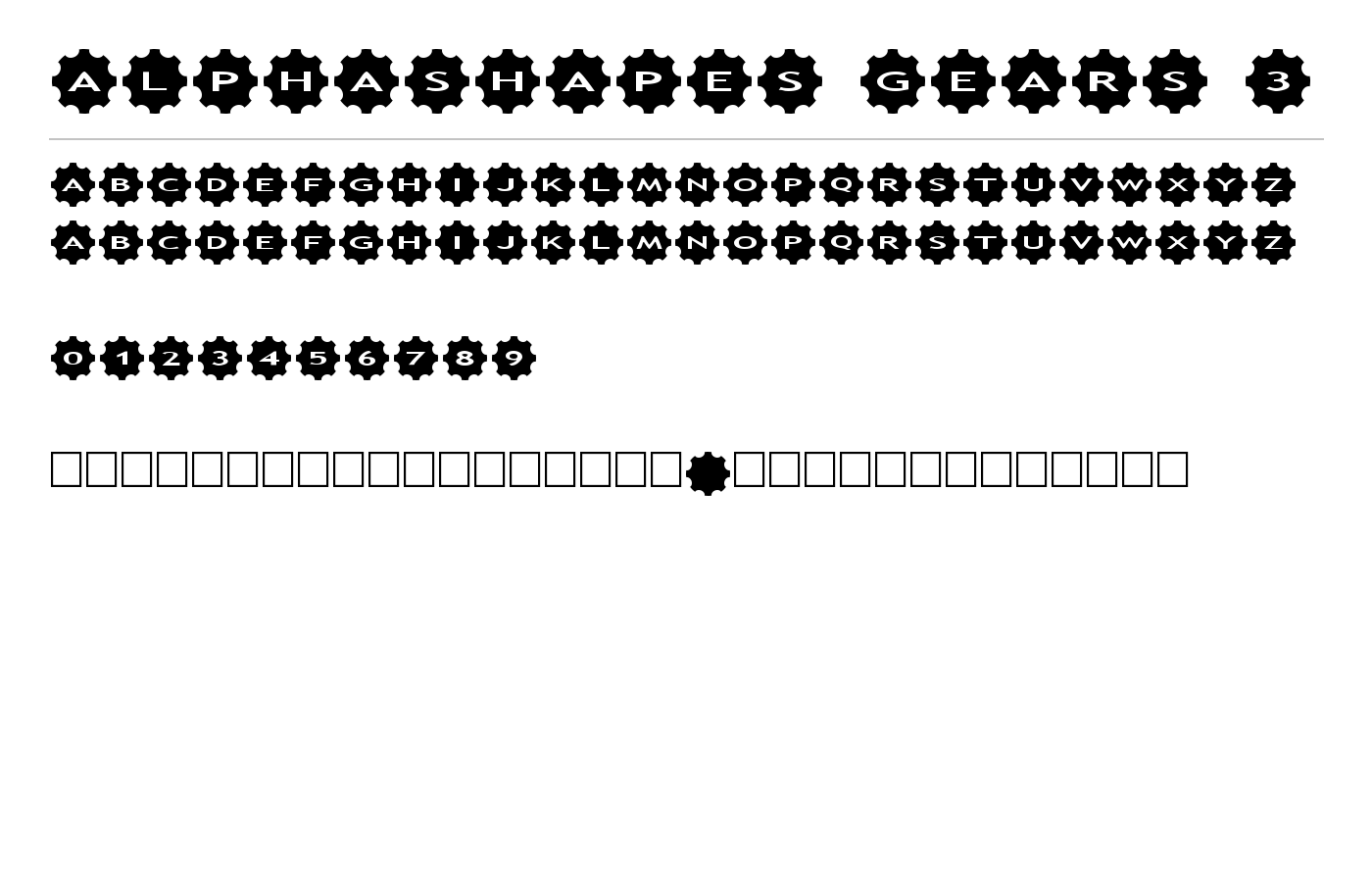
AlphaShapes Gears 3 is a unique decorative font that features bold uppercase letters enclosed within solid gear-shaped outlines, blending industrial and mechanical themes. Its heavy weight, uniform width, and mechanical motif make it ideal for eye-catching logos, posters, or branding related to engineering, technology, or steampunk aesthetics where a strong, playful, and technical personality is desired. This font works best for display use rather than body text due to its intricate shapes and visual complexity.
AlphaShapes gears 3 Font
About AlphaShapes gears 3 Font